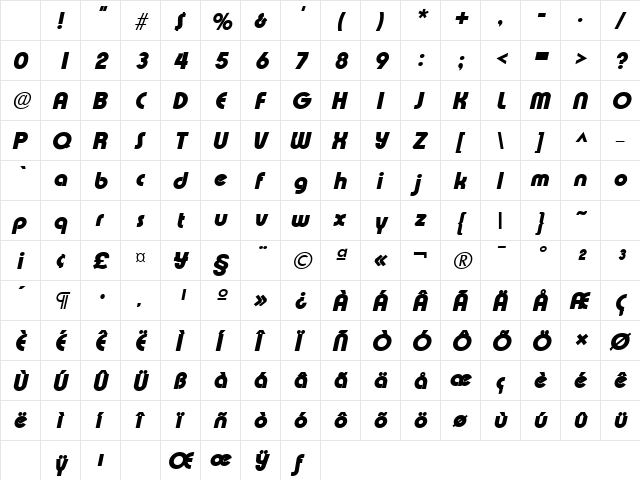
ExpressaLH is a composed and adaptable typeface that performs quietly and consistently across a wide range of design contexts. The slanted form adds forward momentum and visual energy. Its bold stroke weight gives it real presence on the page.
Pro Tip: Use ExpressaLH for emphasis, pull quotes, and subheadings where its slanted energy can add rhythm to the layout.